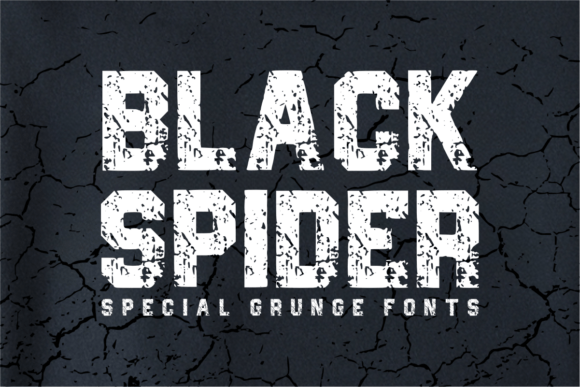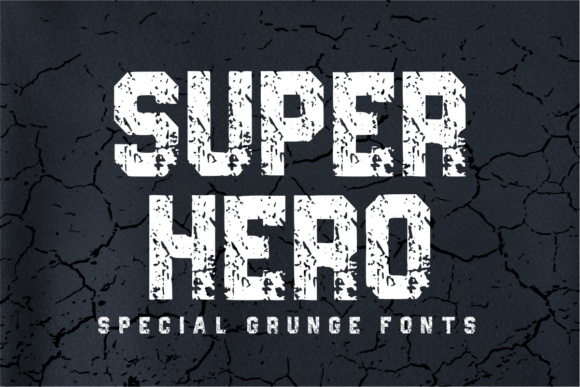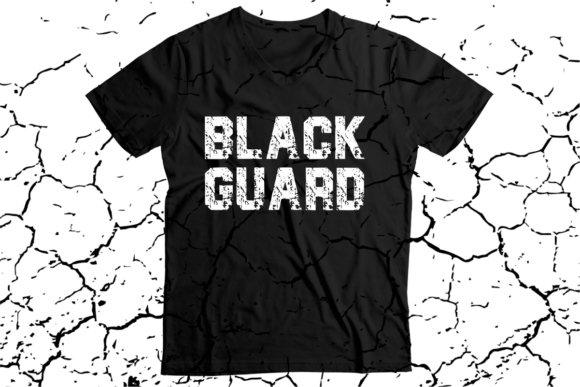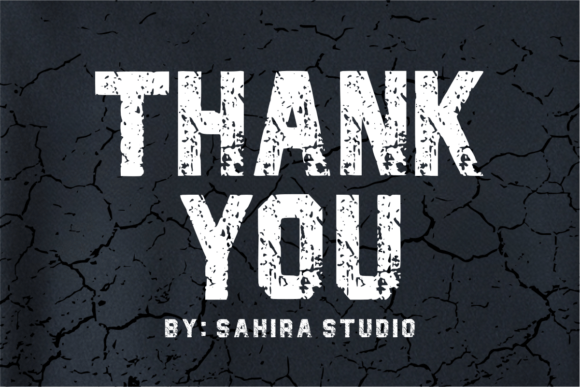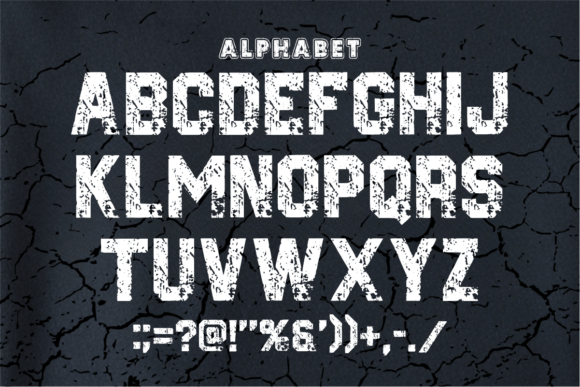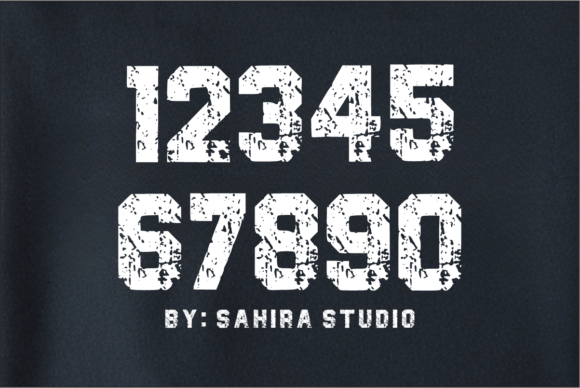
Introduction to Grunge Sports Font
Have you ever been in the midst of a creative project, pouring your heart and soul into a design, only to feel like something’s missing? A spark of inspiration that can elevate your work from good to great? For designers looking to add a raw, powerful edge to their projects, the Grunge Sports Font is the perfect addition.
This rugged and high-impact display font is designed to make a bold statement. With its gritty, distressed texture and strong geometric structure, it’s perfect for sports branding, gym posters, extreme sports promotions, and more. Each letter is crafted to look weathered and worn, giving your project a dynamic, rebellious look that refuses to be ignored.
Key Features of Grunge Sports Font
- High-quality, distressed texture that adds a gritty feel to any creative project
- Unique, hand-drawn style that captures the essence of grunge sports culture
- Perfect for use in sports-themed designs, including jerseys, posters, and websites
Honest Review: Grunge Sports Font
I recently stumbled upon the Grunge Sports Font, and I’m excited to share my thoughts on this design resource. As a designer, I’m always on the lookout for unique and high-quality fonts that can elevate my creative projects.
- Unique texture and distressed look that adds a touch of grit to any design
- Perfect for sports-related projects, such as jerseys, posters, or social media graphics
- Easy to read and customize, even for designers with limited experience
- The font may not be suitable for formal or professional designs, as it has a casual, laid-back feel
- The texture can be overpowering if not used thoughtfully
Overall, I’m impressed with the Grunge Sports Font’s potential to add a creative touch to designs. While it may not be perfect for every project, it’s definitely a valuable design resource to have in your arsenal. If you’re looking for a unique font to spice up your next creative project, give the Grunge Sports Font a try!
Tips for Getting the Most Out of Grunge Sports Font
For the best results, use the Grunge Sports Font in conjunction with other design elements, such as images and shapes. Experiment with different font sizes, colors, and styles to create a unique look. You can also combine the font with other fonts to create a layered, grungy effect.
Common Use Cases for Grunge Sports Font
The Grunge Sports Font is suitable for a variety of creative projects, including sports-themed designs, music festival posters, and urban-inspired graphics. Its high-quality design and transparent background make it a versatile design resource that can be used in many different contexts.
Can I modify the Grunge Sports Font to fit my specific design needs?
Yes, the Grunge Sports Font is a vector-based font, which means it can be easily scaled and modified to fit your specific design needs. You can use design software such as Adobe Illustrator to customize the font’s colors, sizes, and styles. However, please note that modifying the font may affect its original design intent and aesthetic.